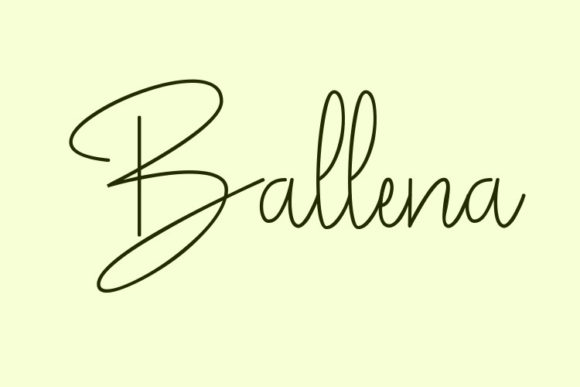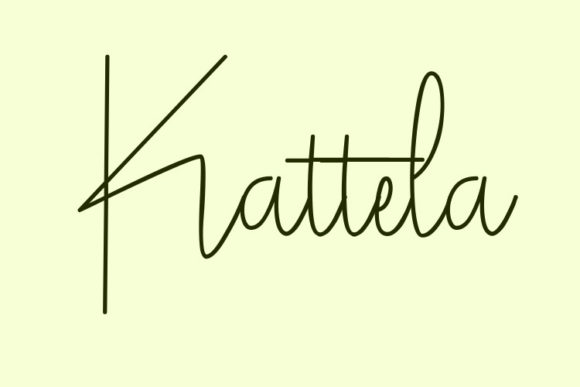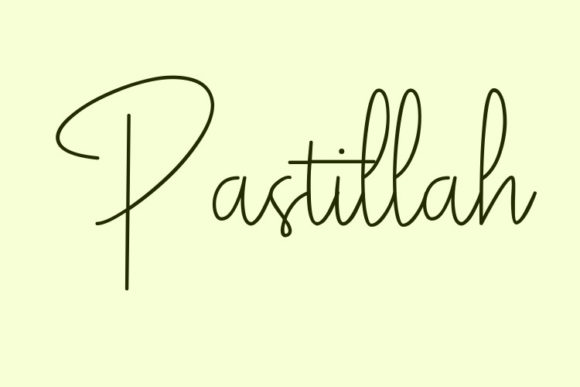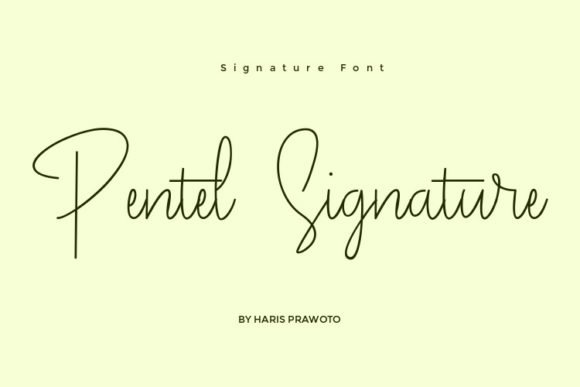
Introduction to Pentel Signature Font
Pentel Signature is a delicate, elegant and flowing handwritten font.
It has beautiful and well balanced characters and as a result, it matches a wide pool of designs Add it to your most creative ideas and notice how it makes them come alive.
Pentel Signature Font offers exceptional quality and versatility, making it a valuable addition to your design toolkit. Whether you’re creating for personal projects or commercial use, Pentel Signature Font delivers professional results.